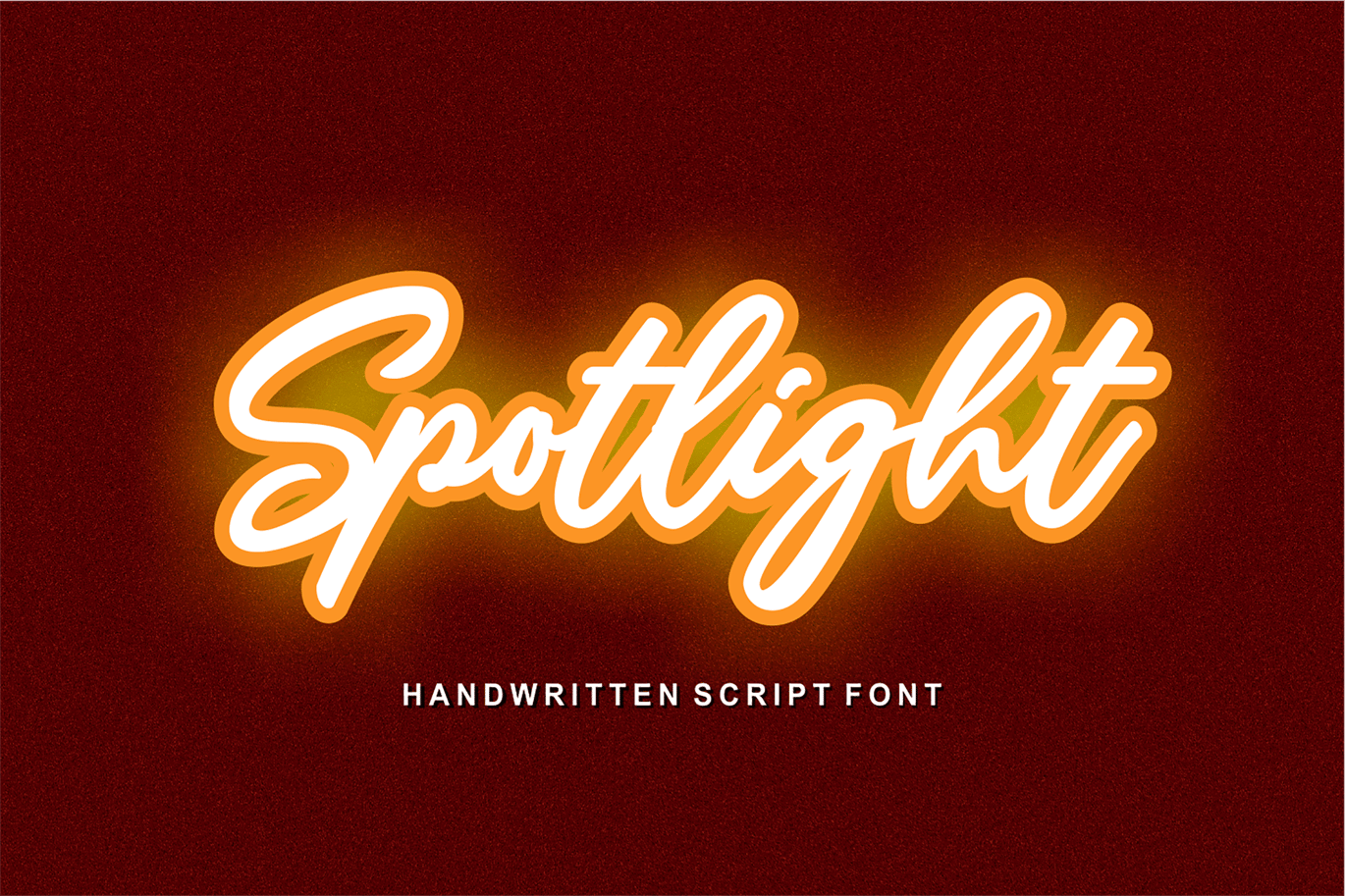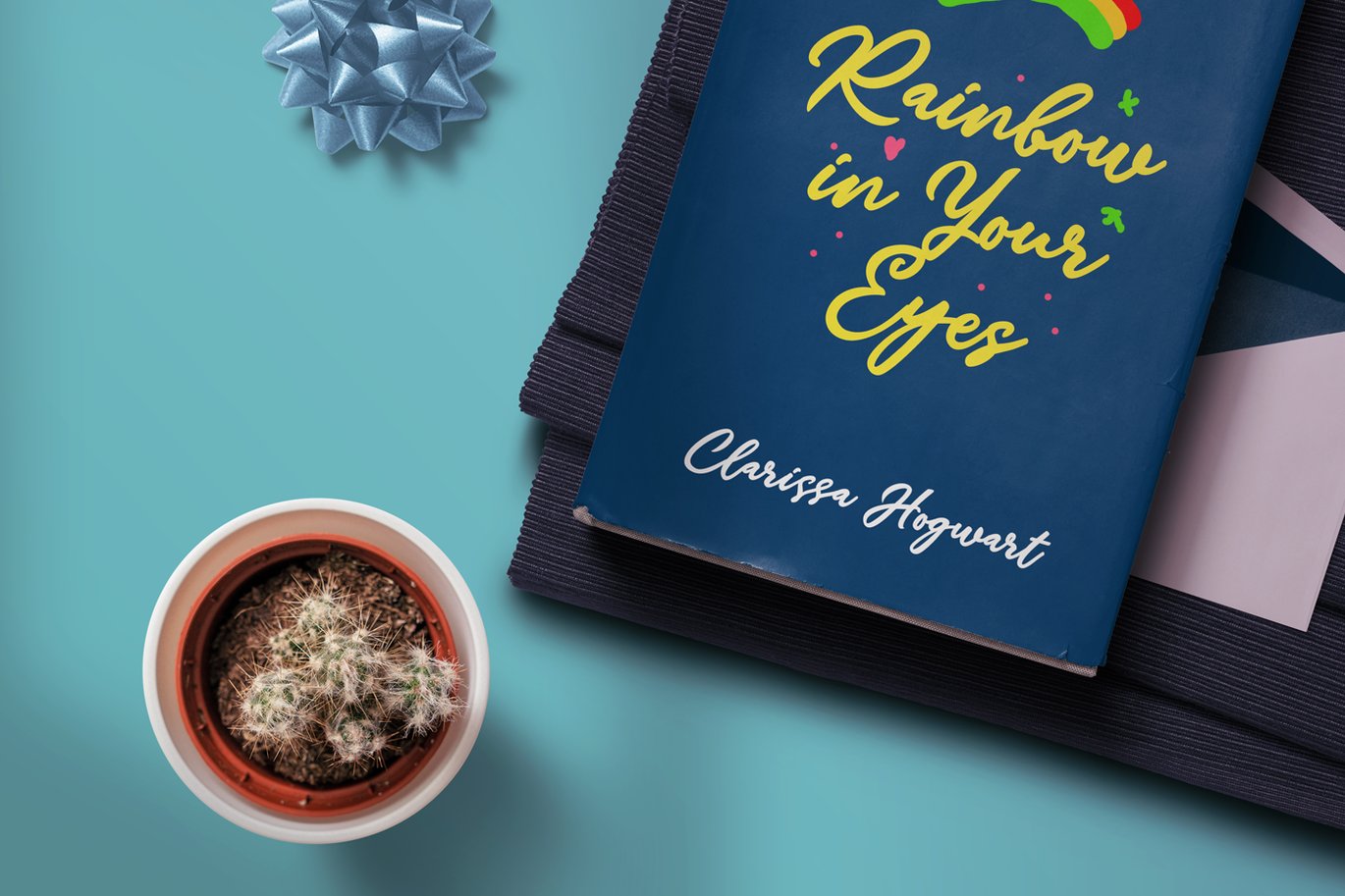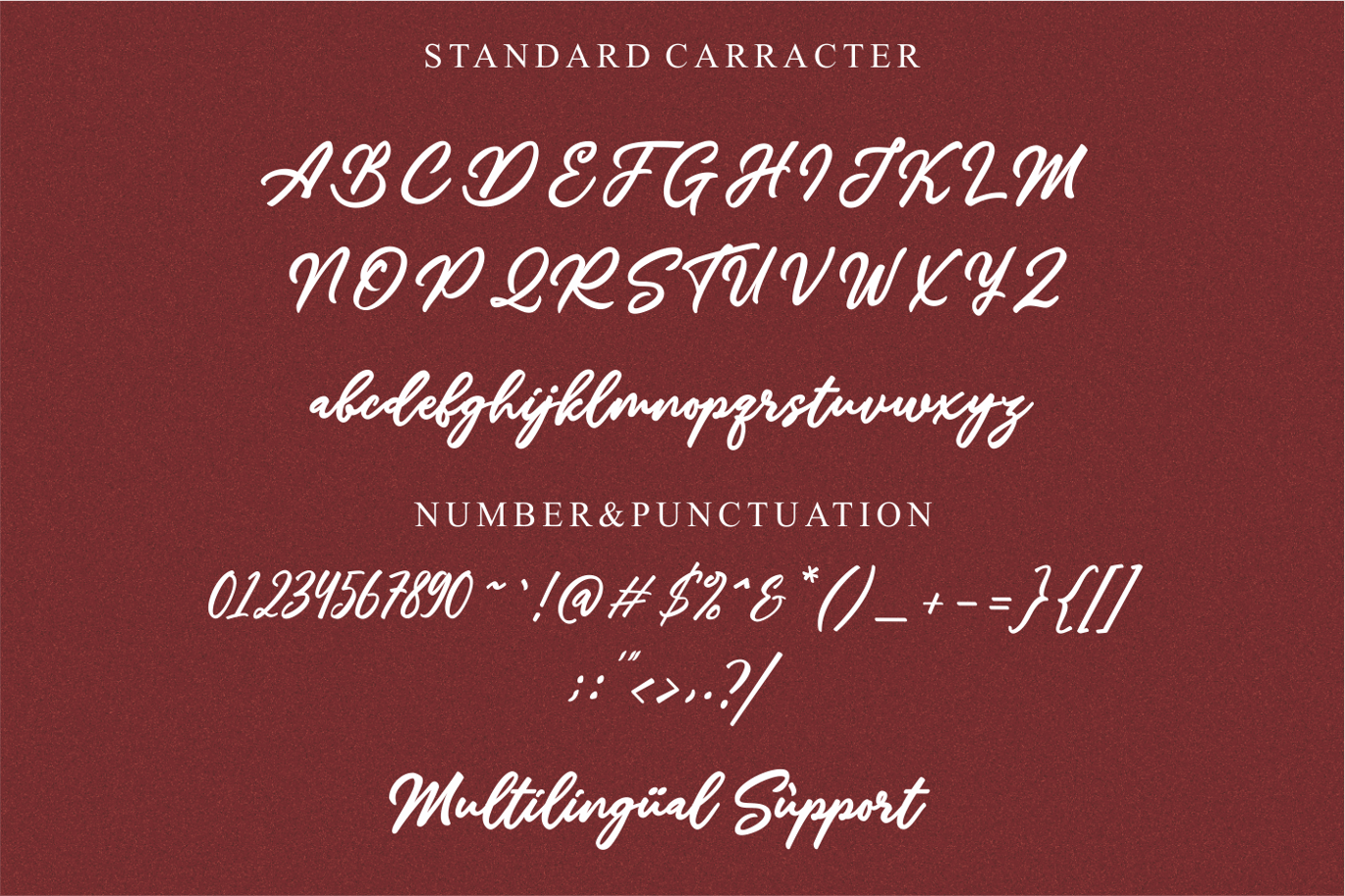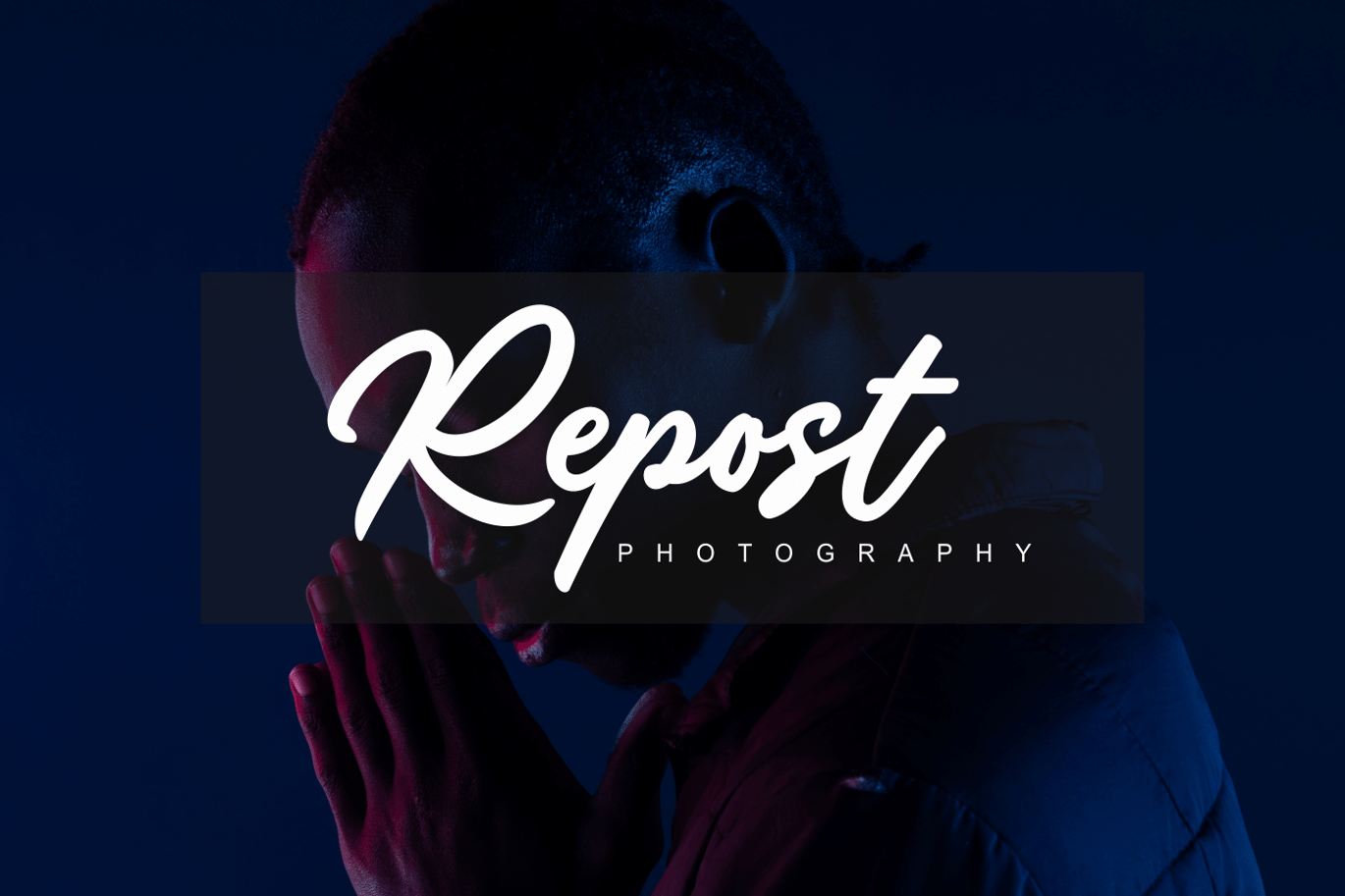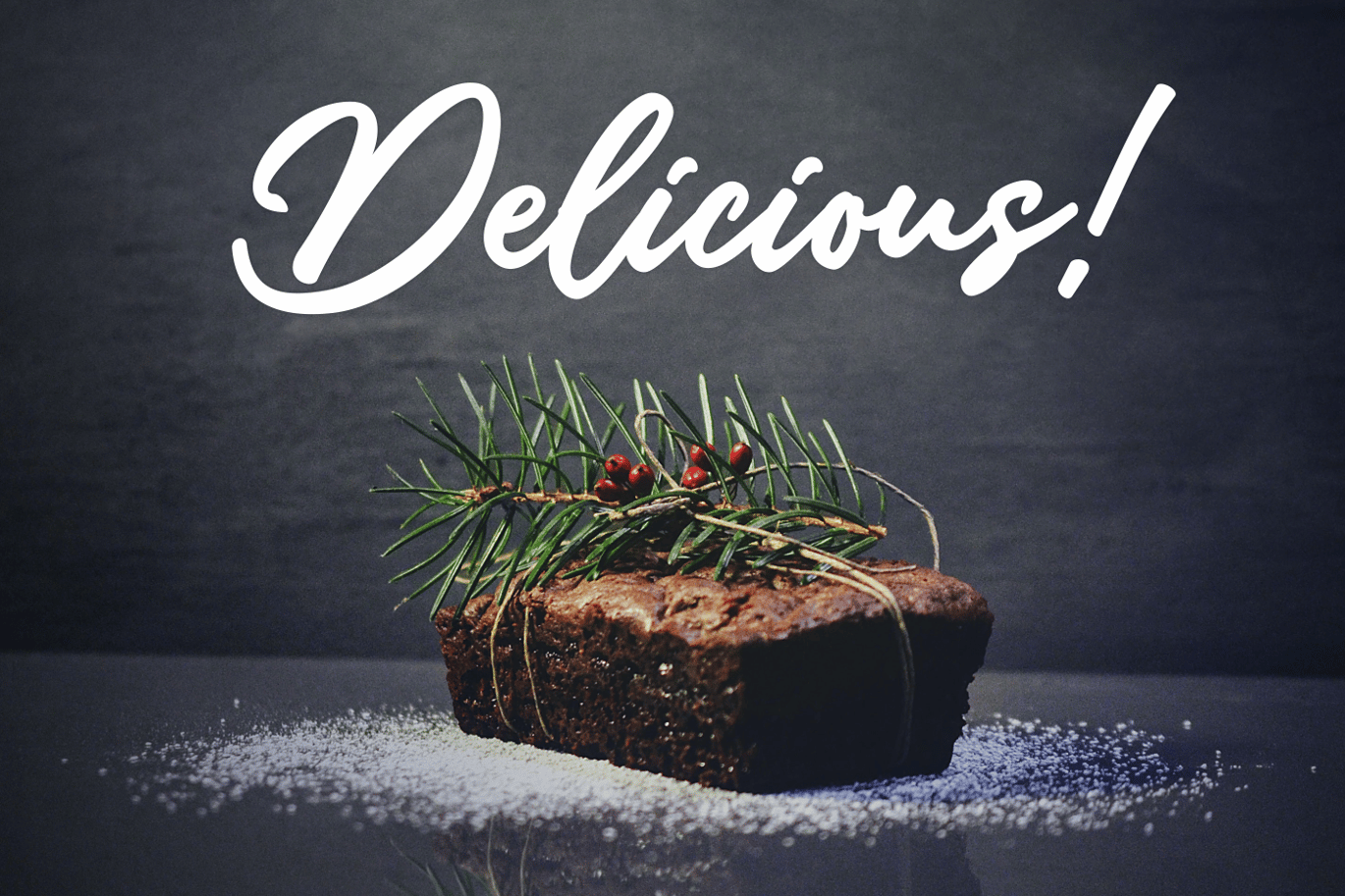
Spotlight Handwriting Font
Introducing Spotlight Handwriting Font
Spotlight is a beautiful and flowing handwritten font with a unique feel and a stunning impact. It will add a luxury spark to any design project that you wish to create!
Suitable for many design projects such as logo design, branding, packaging, blog graphics, stylizing quotes, wedding stationery, art prints, collateral design, packaging, social media, and so on. I’ve truly enjoyed the process of creating this font collection and hope that it will bring some magic into your projects!